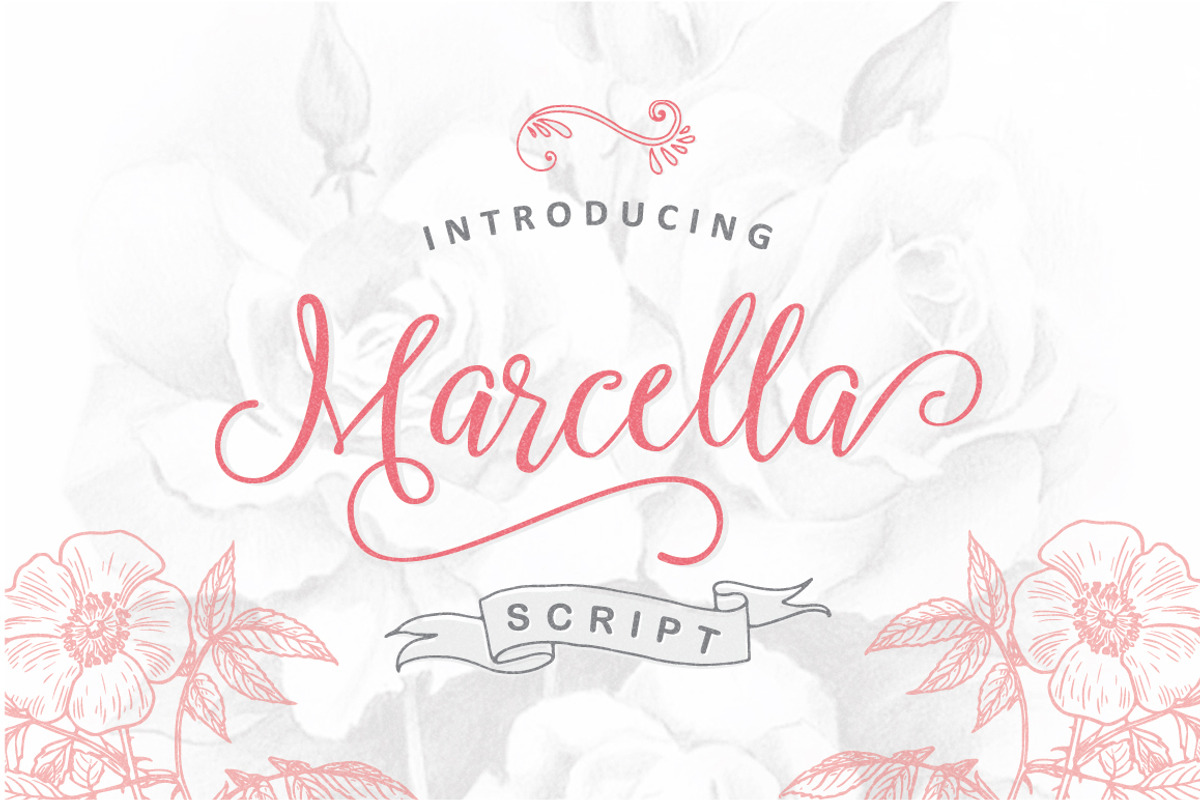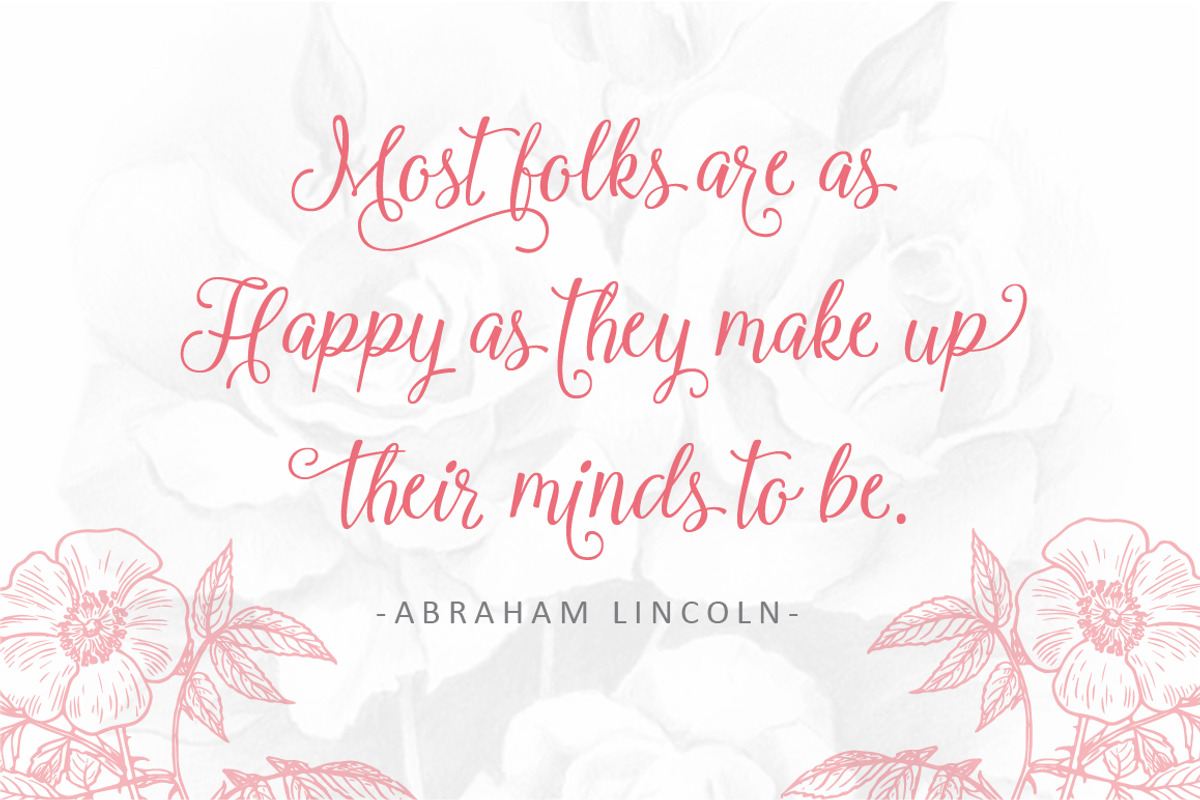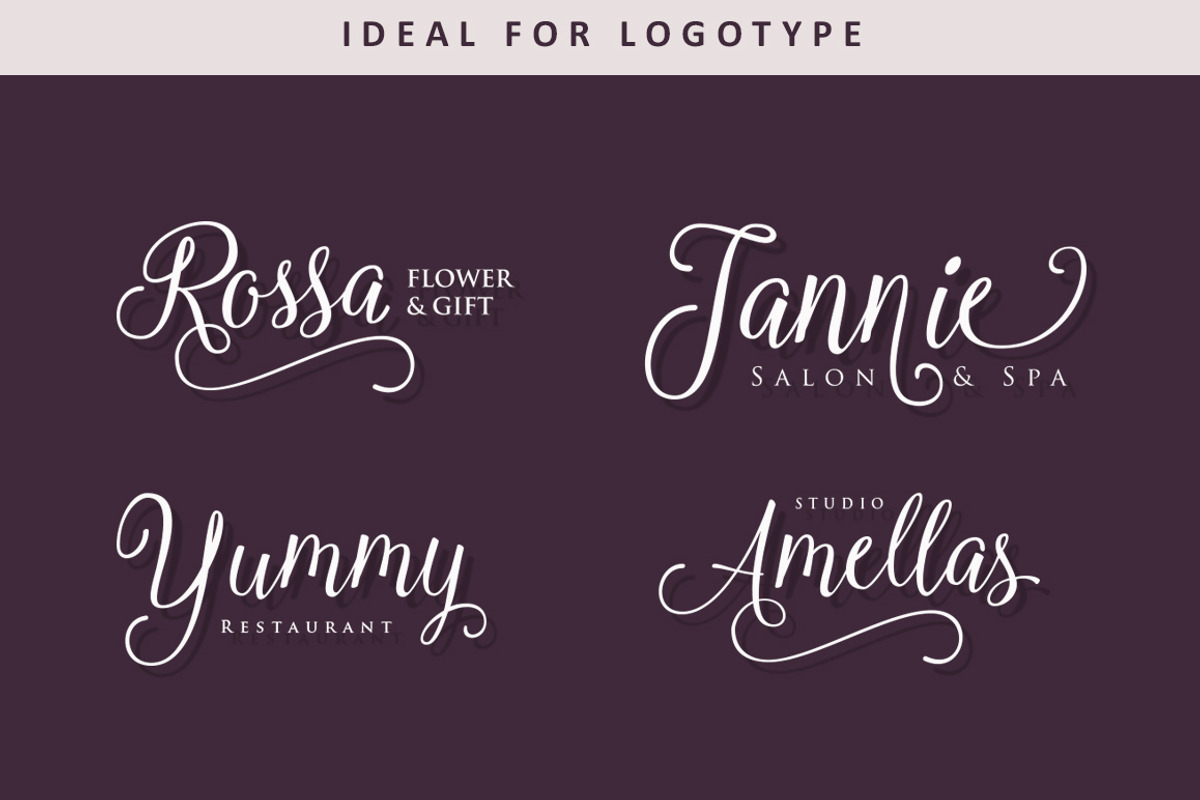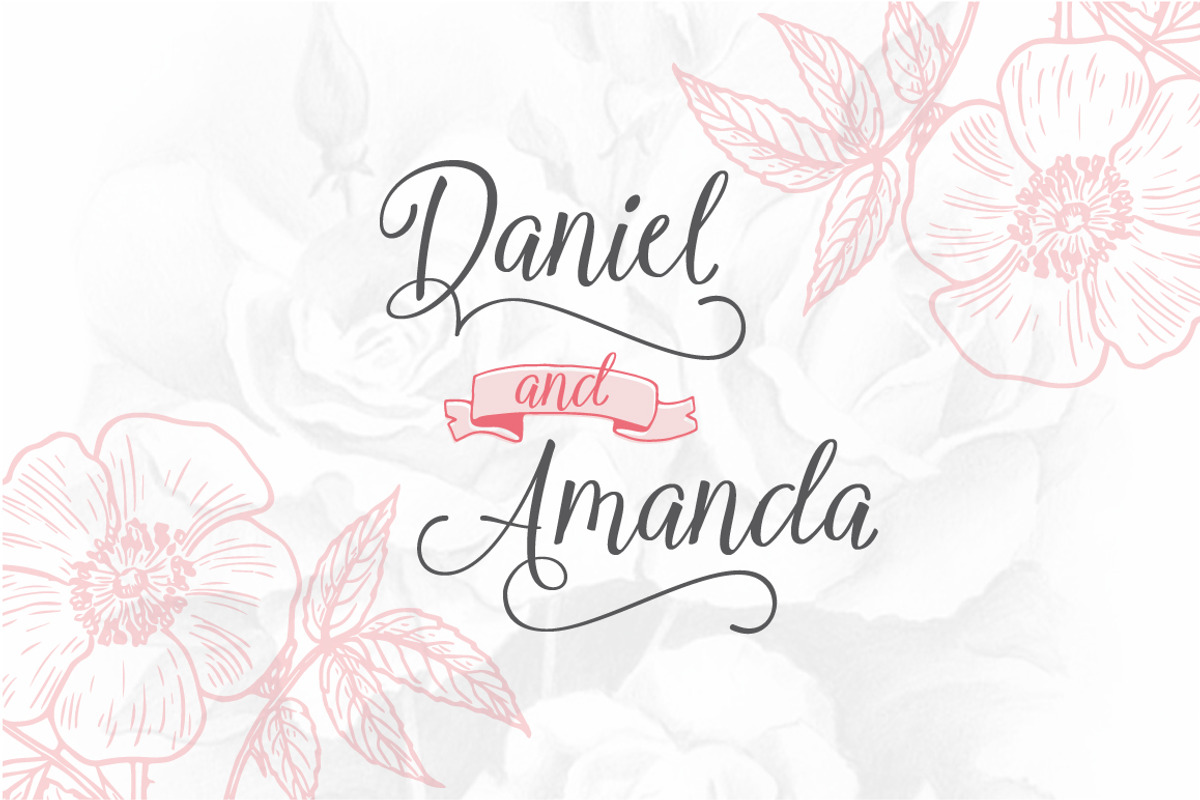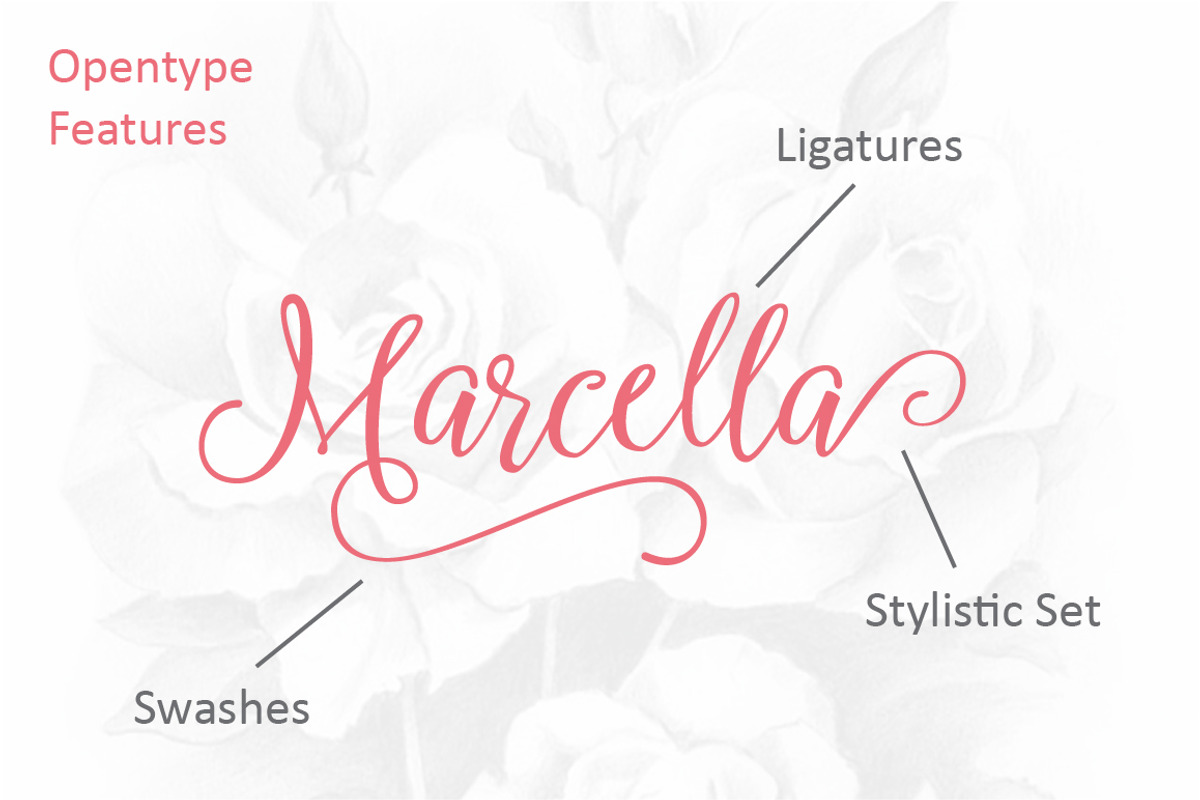
Marcella Script
Marcella Script is a new handwritten stylish copperplate calligraphy fonts, combines from copperplate to contemporary typeface, classic and elegant touch.
Marcella Script features 356 glyphs and 175 alternate character contain with opentype features. Stylistic alternates, Ligature and more.You can access all those alternate characters by using OpenType savvy programs such as Adobe Illustrator, Adobe InDesign and CorelDraw X6-X7.
Marcella Script is suitable for Apparel Brand, any greeting cards, Painting design style, or any design that needs natural and personal touch. Mix and match the alternate characters to add an attractive message to your design.
Features of Marcella Script is;
- Swash Alternates
- Contextual Alternates
- Standart ligatures
- Stylistic sets